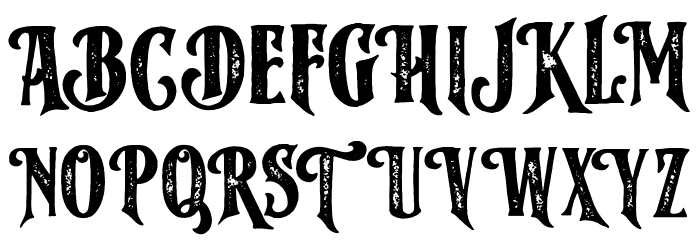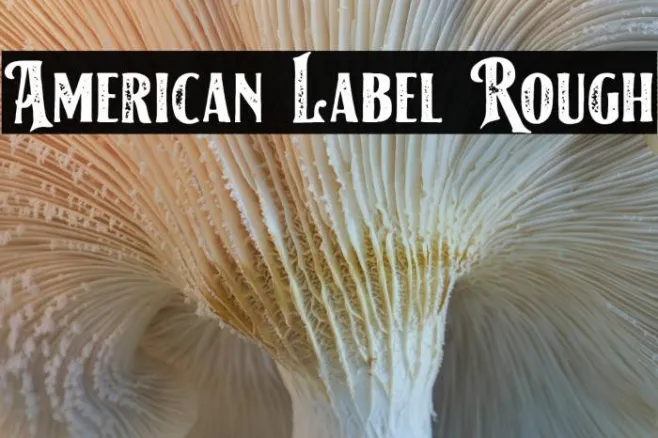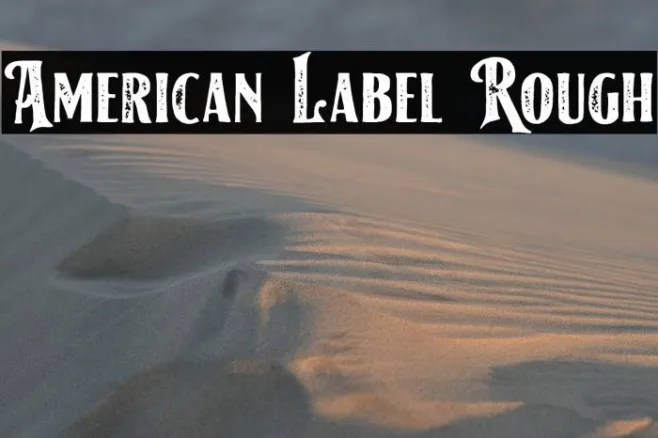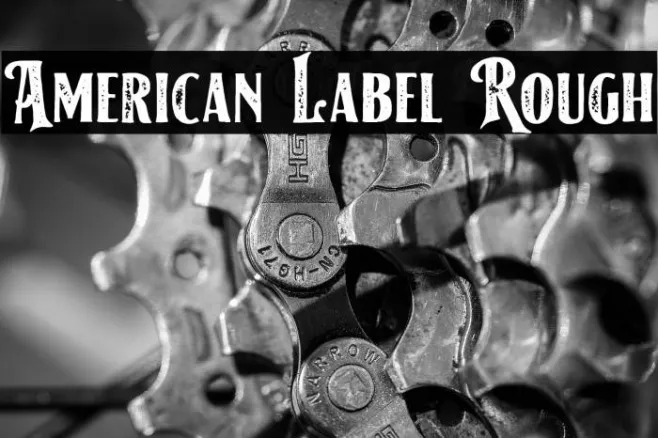
American Label Rough Font
This font features a bold and decorative style with a rough, textured appearance that gives it a vintage and distressed look. The characters have a unique flair with ornate serifs and varying stroke widths, adding to its eye-catching and artistic appeal. The uppercase letters are particularly striking, with intricate details that make them stand out. This font is ideal for projects that require a retro or rustic aesthetic, such as vintage posters, branding for artisanal products, or any design that seeks to evoke a sense of nostalgia and handcrafted charm.
A bold, decorative font with a vintage, distressed look and ornate serifs.
- Proposed Projects: Ideal for vintage posters, artisanal branding, and nostalgic designs.
- Overall Style: Vintage